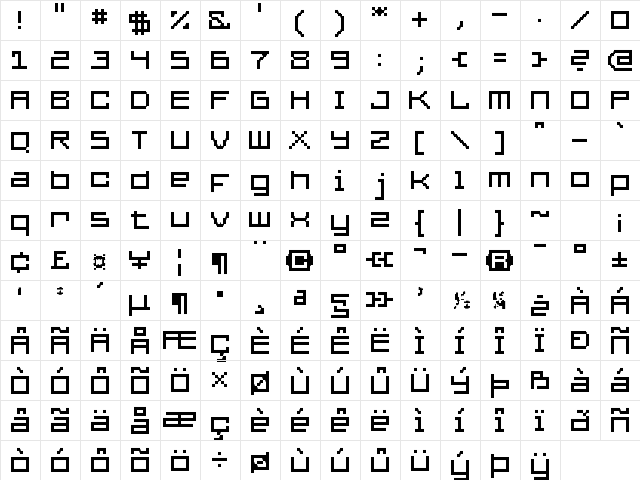
UF PT Ellus Hard Regular
| Foundry | Ultrafonts |
| Designer | Hugo Perez of PixieType |
Design Context for UF PT Ellus Hard Typeface
UF PT Ellus Hard takes a measured approach to typography — its balanced proportions and neutral character make it a reliable workhorse for both digital and print work.